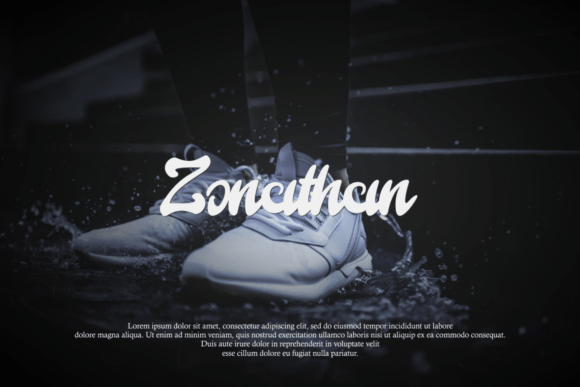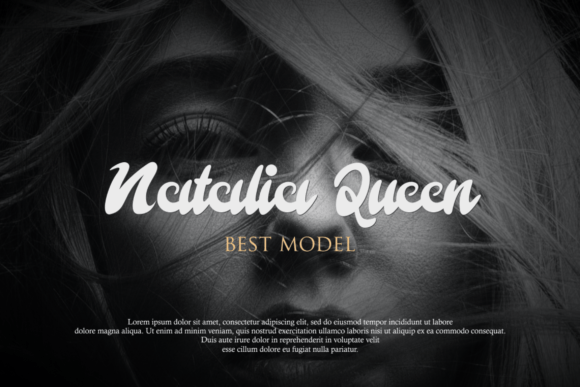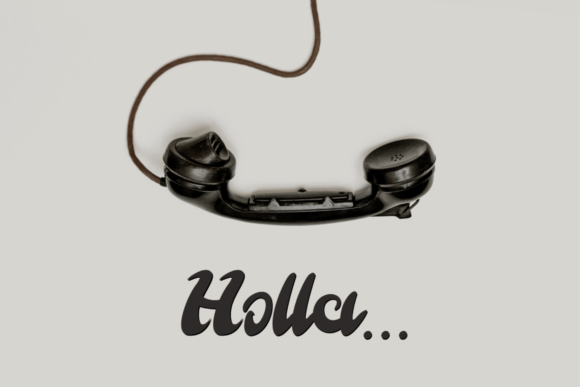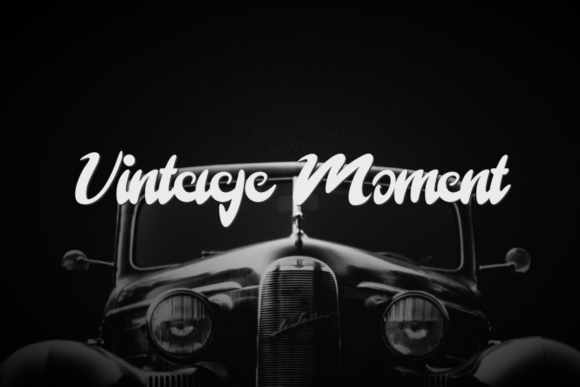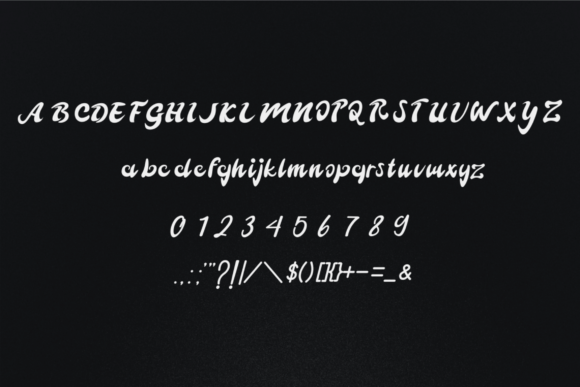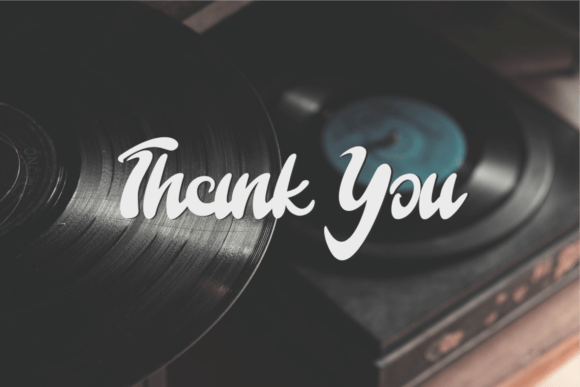
Unleash Your Creativity with Datano Font: The Ultimate Duo for Modern Designs
In the world of typography, fonts play a crucial role in bringing creative ideas to life. For designers, crafters, and branding enthusiasts, finding the perfect font can be a daunting task. However, if you’re looking for a modern, bold, and authentic duo font that can elevate your designs, look no further than Datano Font. This versatile font duo is suitable for a wide range of applications, from branding and logos to T-shirt printing, Esport, and more.
What is Datano Font?
Datano Font is a thoughtfully crafted duo font that combines the elegance of a display font with the warmth of a handwritten font. This unique pairing allows designers to create stunning visual hierarchies and add depth to their designs. The display font is perfect for headlines, titles, and emphasis, while the handwritten font is ideal for body text, quotes, and creative writing.
Key Features of Datano Font
- Modern and Bold: Datano Font boasts a modern and bold aesthetic that’s perfect for making a statement. Its sleek lines and curves give it a fresh and contemporary feel that’s sure to grab attention.
- Authentic Duo: The font duo consists of a display font and a handwritten font, providing designers with a versatile toolkit for creating engaging designs.
- Highly Versatile: Datano Font can be used for a wide range of applications, including branding, logos, T-shirt printing, Esport, and more.
- Easy to Read: The font is designed to be highly legible, making it perfect for body text and creative writing.
Use Cases for Datano Font
Datano Font is an incredibly versatile font duo that can be used in various design projects. Here are some use cases to get you started:
- Branding and Logos: Create a lasting impression with Datano Font’s bold and modern aesthetic. Use the display font for logos and the handwritten font for taglines or descriptions.
- T-Shirt Printing: Add a touch of personality to your T-shirt designs with Datano Font’s handwritten font. It’s perfect for quotes, lyrics, or fun phrases.
- Esport: Take your Esport designs to the next level with Datano Font’s bold and modern display font. Use it for team logos, jerseys, or promotional materials.
- Posters and Flyers: Create eye-catching posters and flyers with Datano Font’s display font. Add a personal touch with the handwritten font for quotes or descriptions.
Tips for Using Datano Font